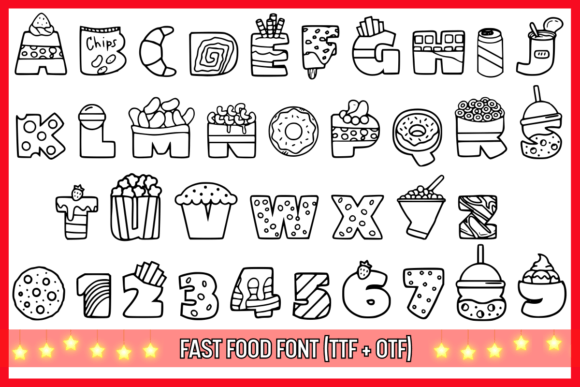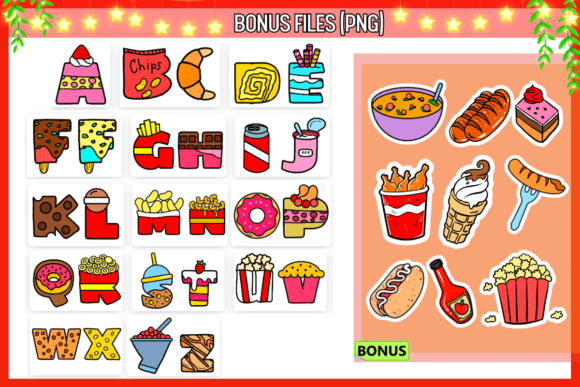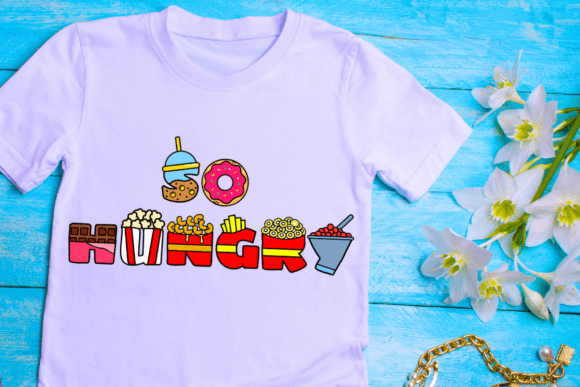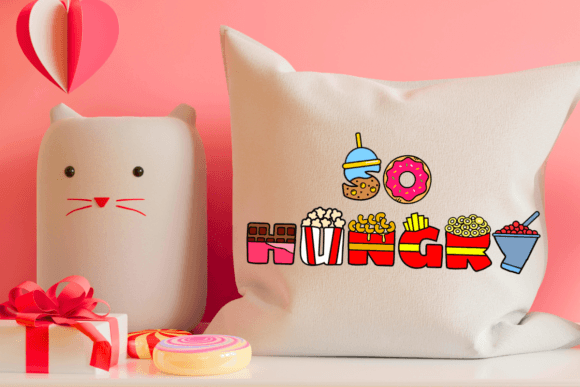
Introducing Fast Food Font: A Deliciously Playful Typeface
Are you tired of using the same old boring fonts in your designs? Look no further! Fast Food Font is a fresh and exciting decorative font that is sure to add a tasty touch to your projects. This playful font features letters shaped like different types of fast food, including burgers, fries, pizzas, and hot dogs. Imagine the possibilities – from menus and posters to social media graphics and craft projects, Fast Food Font is the perfect choice for designers and crafters looking to add some fun and personality to their work.
The Inspiration Behind Fast Food Font
The idea for Fast Food Font was born out of a desire to create a unique and eye-catching typeface that would stand out in a crowded design landscape. The creators of the font wanted to capture the playful and carefree spirit of fast food, while also making it a functional and usable font for designers. The result is a font that is both fun and functional, perfect for projects that require a bit of whimsy and personality.
Key Features of Fast Food Font
- Playful and Colorful: Each letter in Fast Food Font is designed to look like a different type of fast food, making it a colorful and playful addition to any design.
- Decorative: Fast Food Font is a decorative font, perfect for use in designs where you want to add a bit of flair and personality.
- Versatile: Whether you’re designing a menu, poster, or social media graphic, Fast Food Font is versatile enough to fit any project.
Uses for Fast Food Font
Fast Food Font is perfect for a wide range of design projects, including:
- Menus: Add a playful touch to your restaurant or food truck menu with Fast Food Font.
- Posters: Create eye-catching posters for food festivals, cooking events, or promotions with Fast Food Font.
- Social Media Graphics: Use Fast Food Font to create fun and engaging social media graphics for food brands or restaurants.
- Craft Projects: Add a personal touch to your craft projects, such as handmade cards or party decorations, with Fast Food Font.
Tips for Using Fast Food Font
Here are a few tips for getting the most out of Fast Food Font:
- Use it Sparingly: While Fast Food Font is playful and fun, it can be overwhelming if used too much. Use it sparingly to add a pop of personality to your design.
- Pair it with a Simple Font: Pair Fast Food Font with a simple font to create contrast and make your design more readable.
- Experiment with Colors: Fast Food Font is designed to be colorful, so don’t be afraid to experiment with different colors and combinations.
Fast Food Font is a unique and exciting decorative font that is sure to add a tasty touch to your designs. With its playful and colorful letters shaped like different types of fast food, it’s perfect for menus, posters, social media graphics, and craft projects. Whether you’re a designer or crafter, Fast Food Font is a great way to add some personality and whimsy to your work. So why settle for boring fonts when you can add a dash of fun and creativity with Fast Food Font?